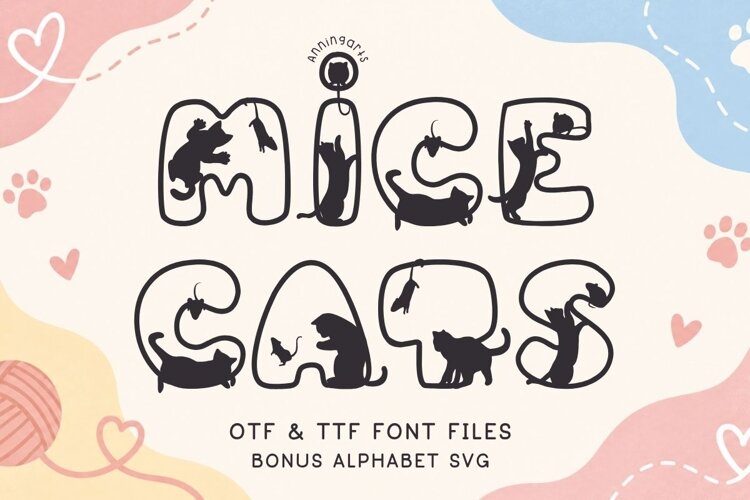
Mice Cats is a cute decorative font featuring playful cat silhouettes, tiny mouse details, hanging toy accents, and outlined letter shapes. The letters have a fun pet-themed style with a sweet handmade look, making the font feel charming, cozy, and easy to use for cute designs.